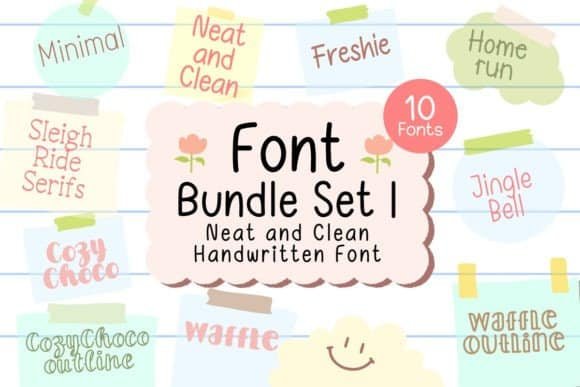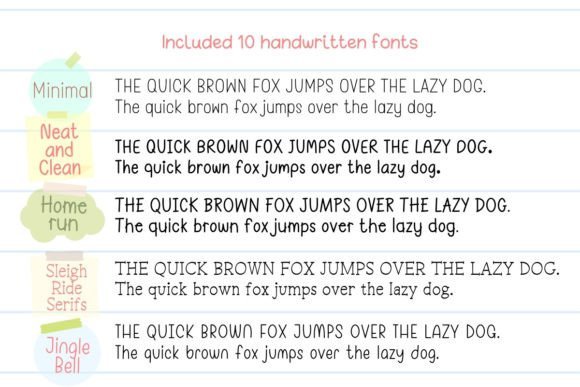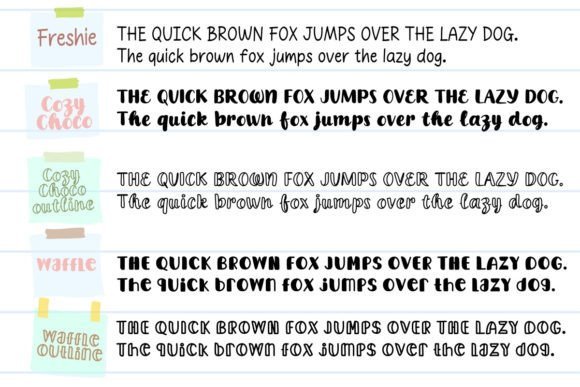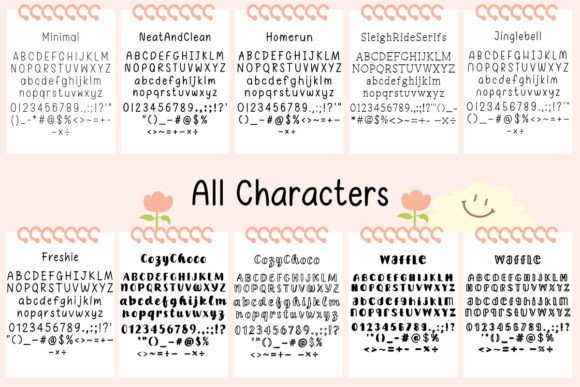
Neat & Clean Handwritten Font Bundle V.1 Font
Neat and Clean Handwritten Font Bundle V.1 is the ultimate collection of cute and tidy fonts perfect for all your creative projects! This versatile bundle includes 10 unique and playful handwritten fonts designed to bring a charming and polished look to your work. Whether you’re creating content for digital planners, GoodNotes, Canva, Procreate, or crafting logos, advertisements, and social media posts, this bundle has got you covered. Ideal for back-to-school projects, this bundle is also perfect for note-taking, journaling, and adding a personal touch to teaching materials. With a mix of neat, clean, and whimsical designs, these fonts are perfect for kid products, fashion, and more. Elevate your designs with this must-have collection that offers endless possibilities for both personal and professional use.